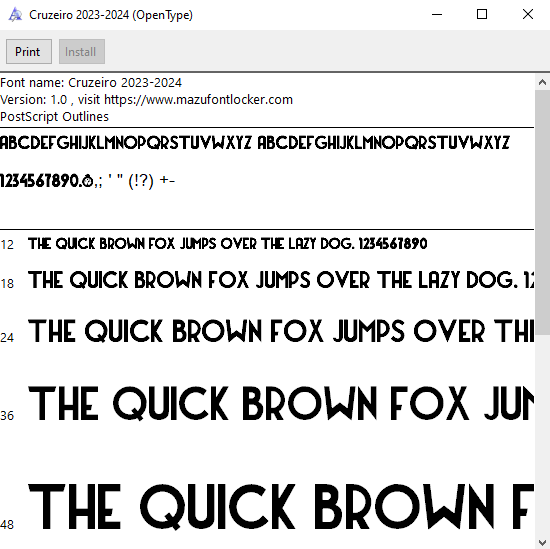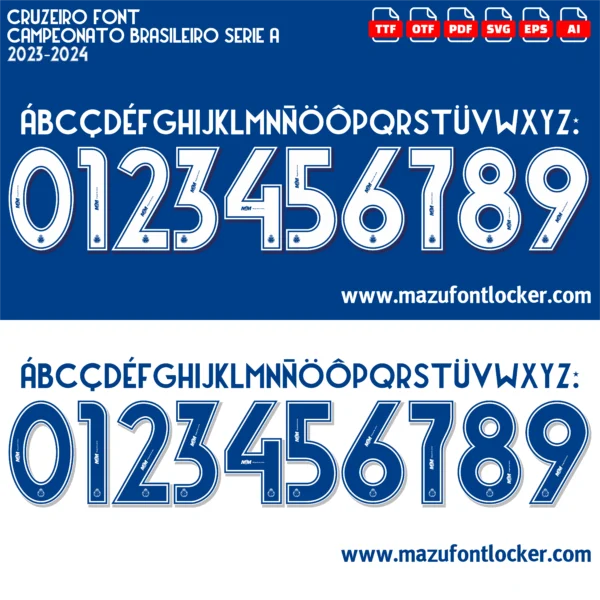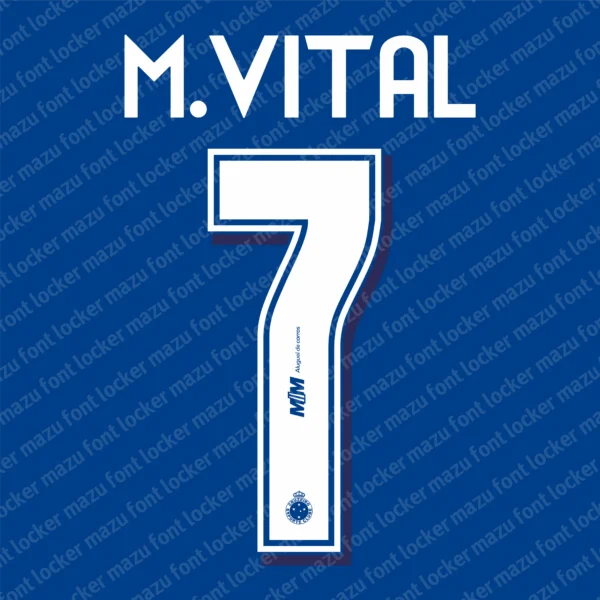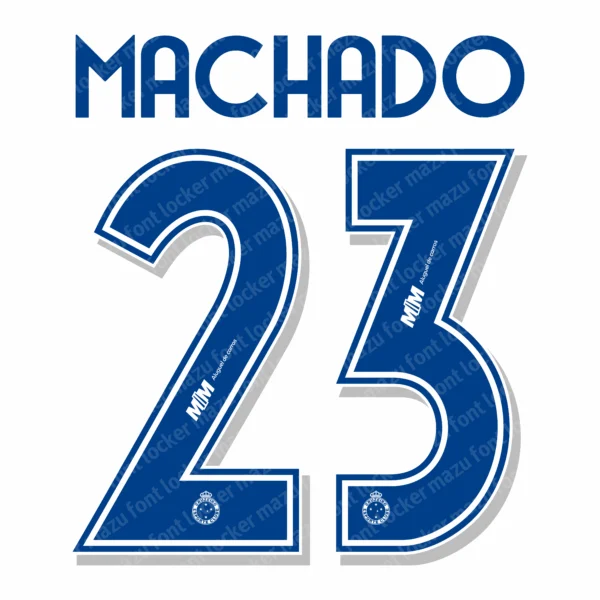
Cruzeiro 2023-2024 Font Vector – Stunning Raposa Masterpiece
This font captures the commanding, razor-sharp, thunderous, and precision-crafted lettering that perfectly embodies Cruzeiro’s proud club identity, rich Brazilian football heritage, iconic blue-and-white tradition, and relentless winning mentality — delivering unmatched authenticity, premium quality, explosive energy, and elite Brasileirão & South American football presence for professional jersey mockups, dynamic football graphics, premium sports branding, passionate fan creations, and high-end design projects.
Cruzeiro 2023-2024 Font Vector – Iconic Raposa Heritage Typeface
The Cruzeiro 2023-2024 Font Vector is a premium typeface that accurately recreates the official match lettering worn by Cruzeiro Esporte Clube during the 2023-2024 season. This high-quality vector font kit captures the bold, clean, and instantly recognizable typography that perfectly complements the club’s iconic blue and white identity.
Designed for professional designers, football enthusiasts, and passionate Cruzeiro supporters, the Cruzeiro 2023-2024 Font Vector delivers exceptional authenticity for creating realistic jersey mockups, football merchandise, social media graphics, match posters, and custom fan artwork. Every character has been carefully recreated to match the powerful and precise visual style of one of Brazil’s most successful and historic football clubs.
This font stands out thanks to its precise vector construction and authentic club-inspired styling. Every letter and numeral has been meticulously recreated to match the official shirt lettering used throughout the 2023-2024 Brasileirão and South American football campaigns. Whether you’re producing professional kit templates or creating eye-catching football content, the Cruzeiro 2023-2024 Font Vector delivers a genuine match-ready appearance inspired by the proud identity of the Belo Horizonte giants.
The lettering featured in the Cruzeiro 2023-2024 Font Vector combines clean geometric lines with powerful modern proportions. The result is a premium and highly readable typeface that reflects Cruzeiro’s winning mentality, attacking football, precision, and proud Raposa heritage.
• Complete uppercase A–Z alphabet and numbers 0–9 in authentic Cruzeiro 2023-2024 style
• Special Cruzeiro badge glyph – Press the “:” (Colon) key to insert the club crest
• Recreate the distinctive look of Cruzeiro player names and squad numbers for creative projects
Cruzeiro 2023-2024 Season
The 2023-2024 season marks another exciting chapter for Cruzeiro Esporte Clube as the club continues its pursuit of domestic and continental success. Competing in the Brasileirão and aiming for another memorable campaign in South American competitions, Cruzeiro will once again showcase its iconic blue and white colours on the biggest stages of football.
Known for its rich history, passionate supporters, and commitment to attacking football, Cruzeiro remains one of Brazil’s most celebrated clubs. The Cruzeiro 2023-2024 Font Vector is designed to capture the bold visual character associated with the club’s modern football identity.
The Cruzeiro 2023-2024 Font Vector is an independently designed typeface package inspired by the official shirt lettering associated with the 2023-2024 season. It has been carefully recreated for football enthusiasts, graphic designers, collectors, and creators producing custom jersey concepts, football artwork, and fan-made projects.